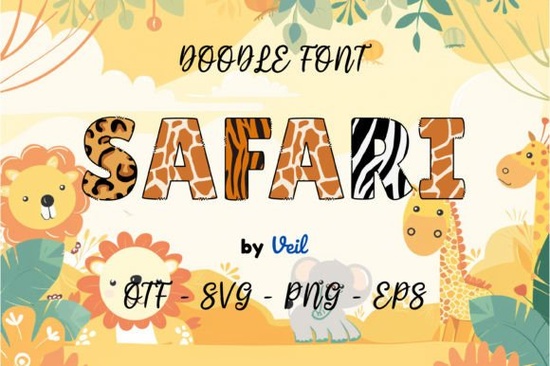
If you're working on a project that calls for whimsy, warmth, and a touch of wild adventure, the Safari Font might be exactly what your design needs. This playful typeface brings a hand-drawn charm that’s especially well-suited for children’s books, birthday invitations, classroom posters, and greeting cards. Its friendly letterforms feel both approachable and imaginative perfect for engaging young readers or adding personality to craft projects.
One thing to keep in mind: Safari Font comes in two distinct versions black (outline) and color (multicolored). Each has different compatibility, so it’s worth checking which one fits your workflow before downloading.
Great uses for Safari Font beyond kids’ books
While it shines in children’s publishing, this font’s cheerful energy translates well to many creative niches:
- Print-on-demand products: Think mugs, T-shirts, or wall art with phrases like “Wild About You” or “Adventure Awaits.”
- Party supplies: Birthday banners, cupcake toppers, or photo booth signs for jungle- or safari-themed celebrations.
- Educational printables: Flashcards, classroom labels, or reward charts that need to feel inviting but not overly childish.
- Digital stickers and planner kits: The color version adds instant vibrancy when layered in Procreate or Illustrator.
- Avoid resizing too small; fine details may blur or disappear at tiny sizes.
- Use solid backgrounds. Transparent or busy patterns can make the colored letters harder to read.
Is Safari Font right for your next project?
Ask yourself: Does your design need a lighthearted, handcrafted vibe? Are you targeting families, educators, or young audiences? If yes, Safari Font delivers personality without sacrificing legibility. Just double-check your software compatibility based on whether you want the black or color version.
With the right prep, Safari Font can add joyful energy to everything from storybooks to summer camp flyers and help your creations stand out with authenticity and heart.